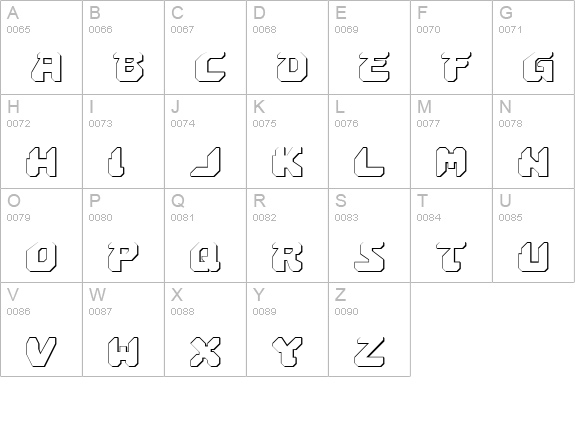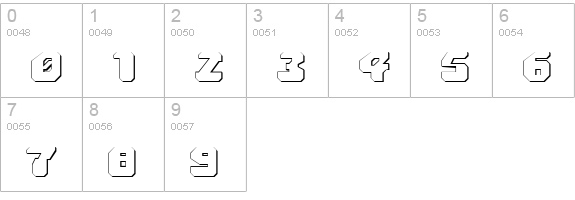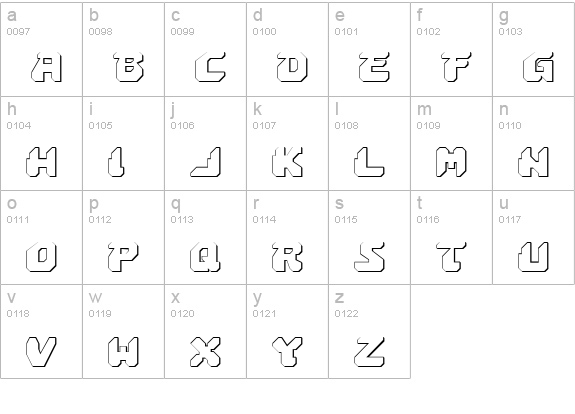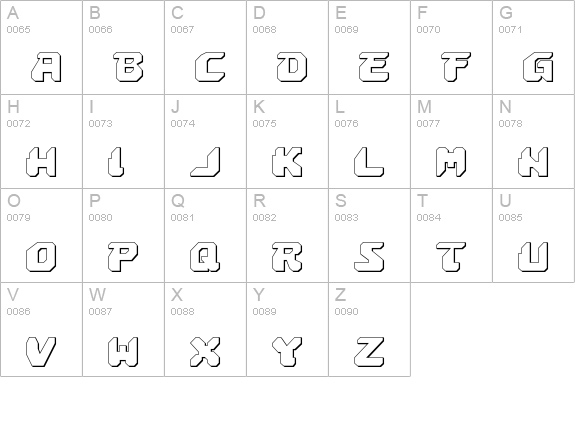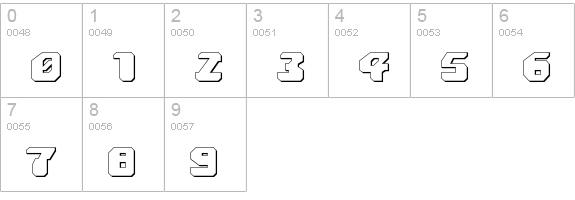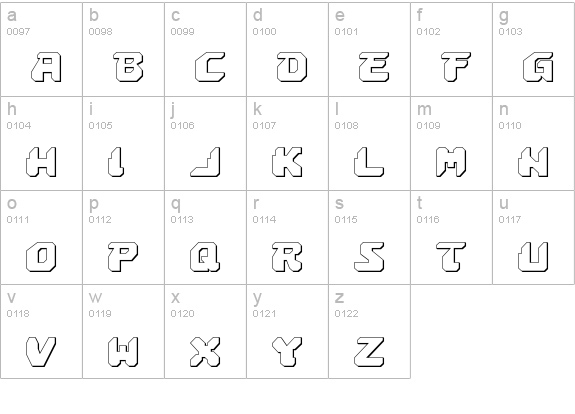
Astropolis 3D font is a stunning display font that will take your designs to new dimensions. Its futuristic and dynamic 3D effect adds a touch of modernity and energy to any project. This font is perfect for creating eye-catching headlines, logos, posters, and more. With its bold and striking appearance, Astropolis 3D font demands attention and makes a strong visual impact. The best part? Astropolis 3D font is completely free for personal and commercial use. You can download this incredible font for free at FontsMarket.com. Don't miss out on the opportunity to elevate your designs with this unique and captivating font. Download Astropolis 3D font today and let your creativity soar!